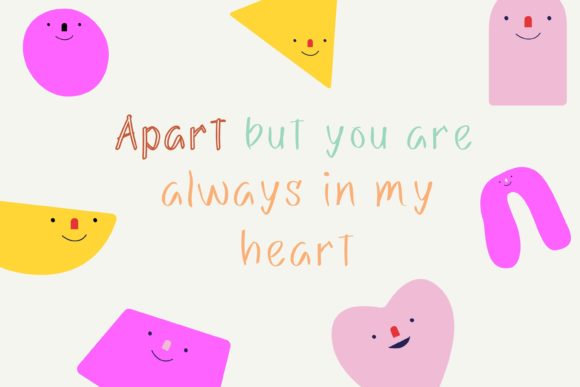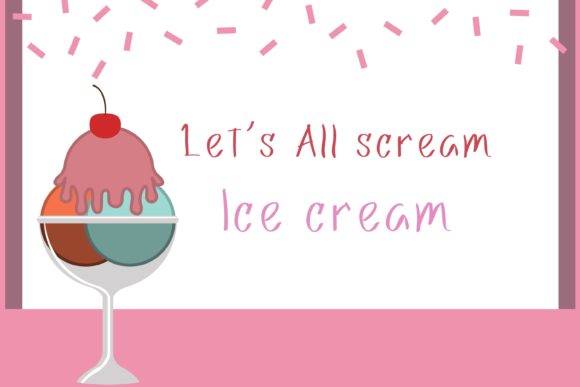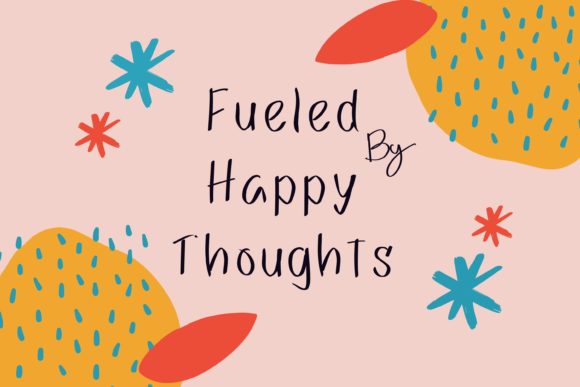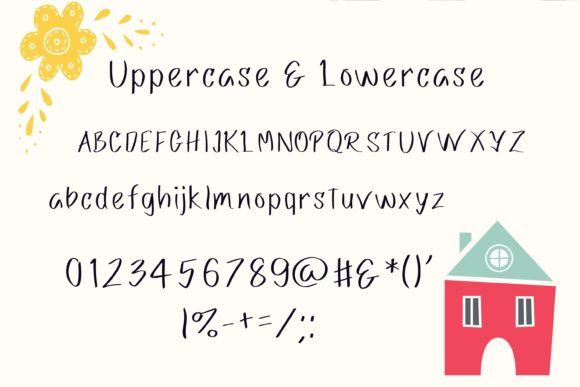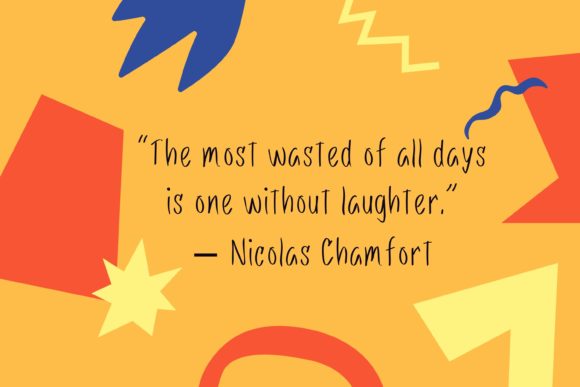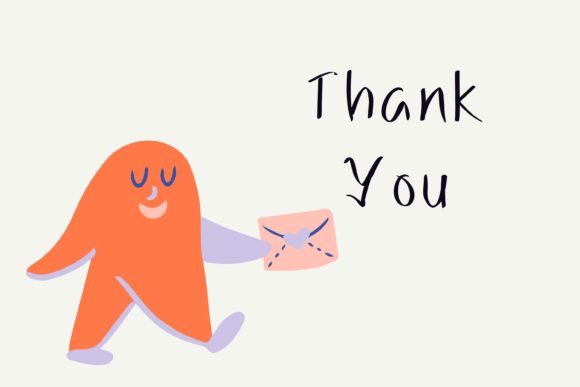
Joyful Font
About Joyful Font
Joyful is a sweet and friendly handwritten font. Its natural and unique style makes it incredibly fitting to a large pool of designs. The only limit is your imagination!